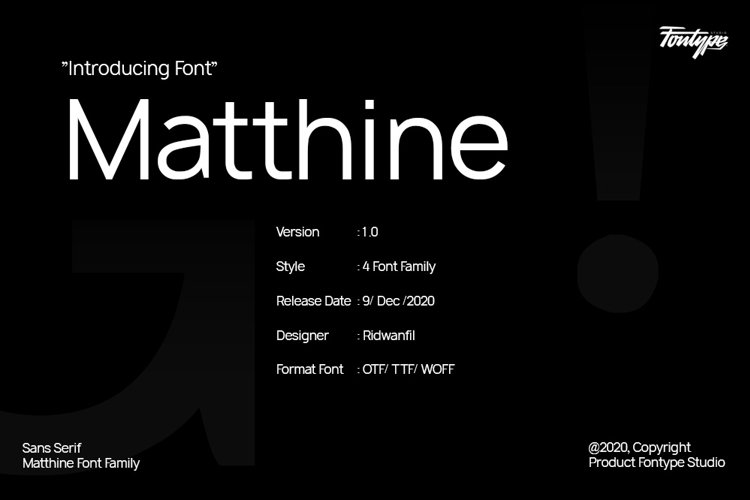
Matthine Font is a modern style and cool authentics sans serif, This font suitable for Branding, Logo Design, label product, event/ organization and much more to implementation in other place.